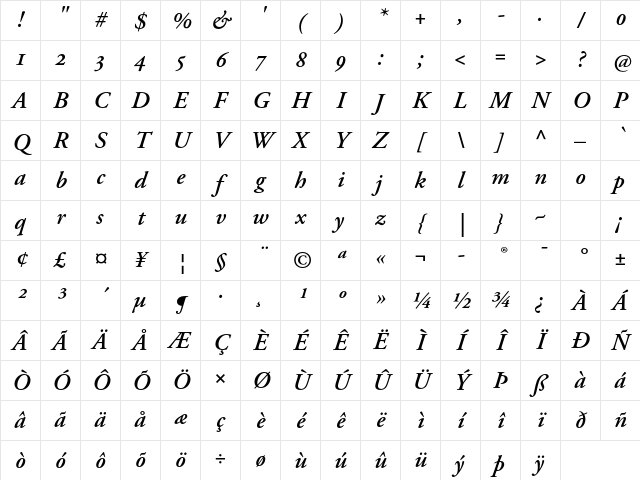
Hipermestra Demibold Italic
Style: Demibold Italic
Design Context for Hipermestra
Hipermestra is a composed and adaptable typeface that performs quietly and consistently across a wide range of design contexts. The slanted form adds forward momentum and visual energy. Its bold stroke weight gives it real presence on the page.
Pro Tip: Use Hipermestra for emphasis, pull quotes, and subheadings where its slanted energy can add rhythm to the layout.